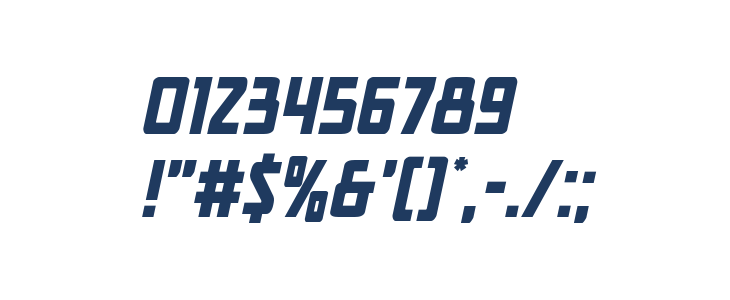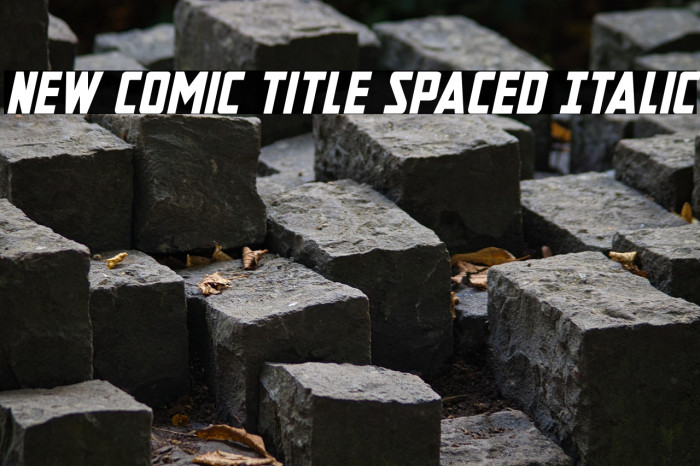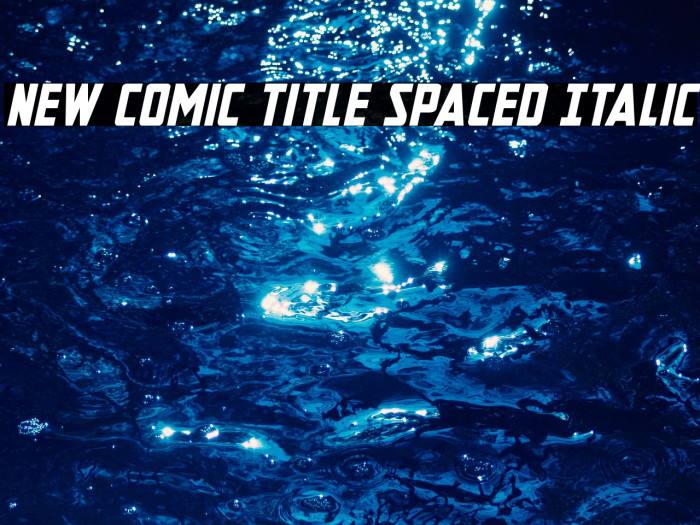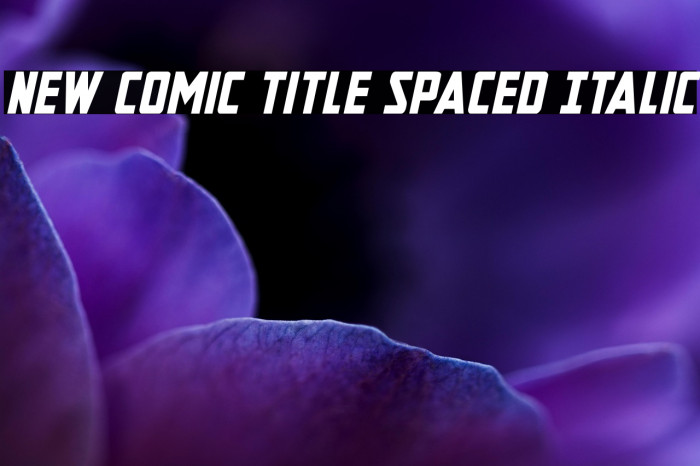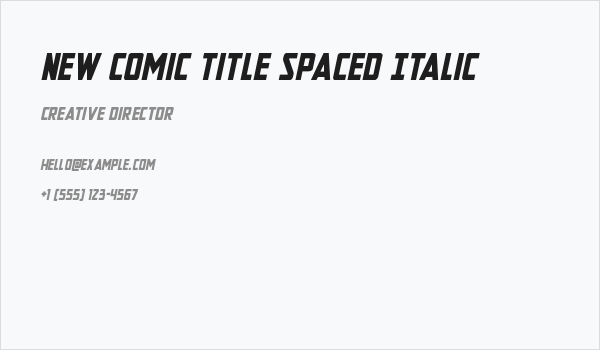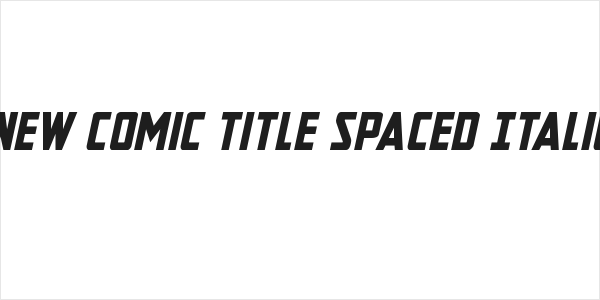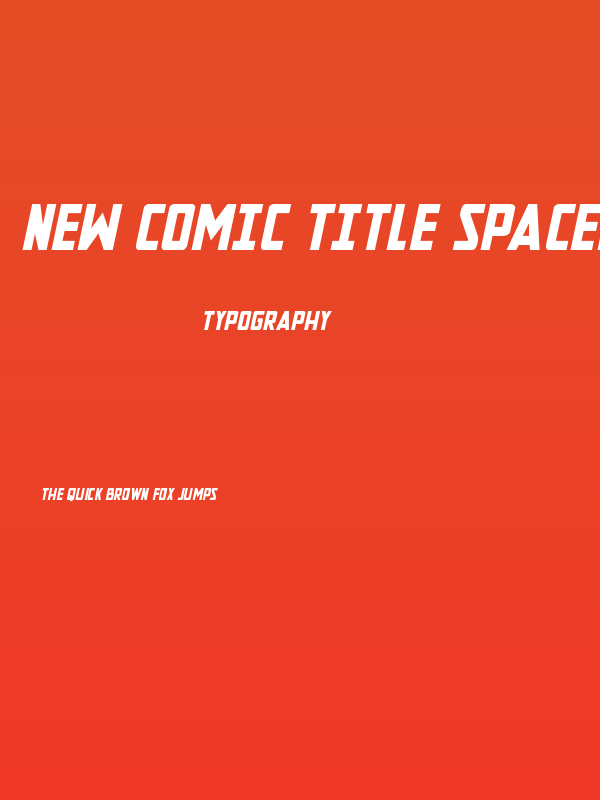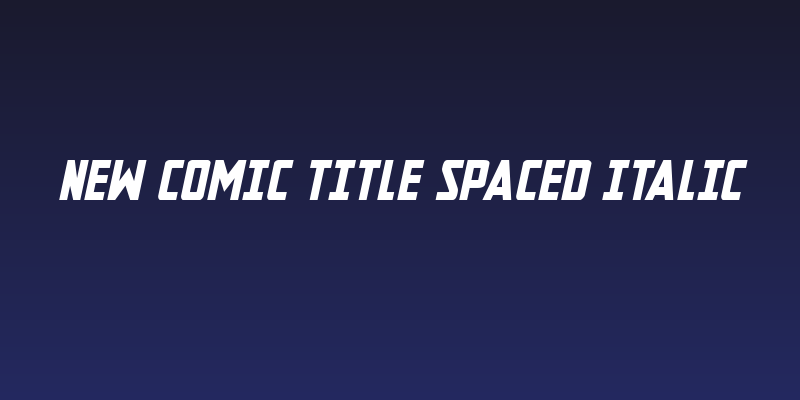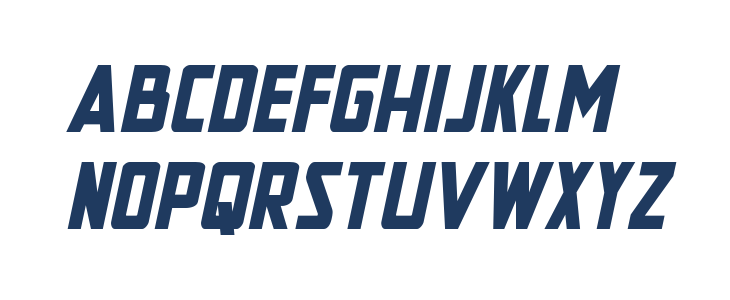
New Comic Title Spaced Italic Font
New Comic Title Spaced Italic Description
This font features a bold, italicized style with a modern and dynamic appearance. The characters are slightly slanted, giving a sense of motion and energy. The uppercase and lowercase letters maintain a consistent design, with sharp angles and clean lines. The numbers and special characters follow the same aesthetic, ensuring uniformity across all elements. The font's bold weight and italic style make it stand out, suitable for attention-grabbing headlines or titles. The spacing between characters is normal, allowing for readability while maintaining its striking look.
| Proposed Projects | Ideal for comic book titles, posters, branding materials, and any project requiring a bold, energetic typeface. |